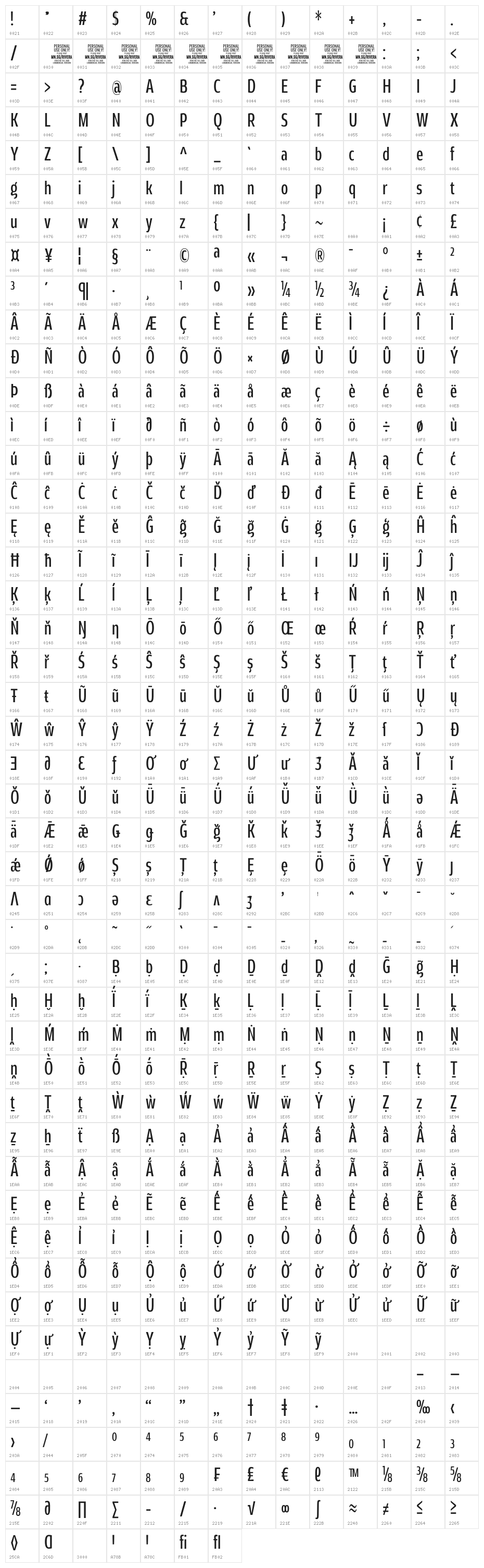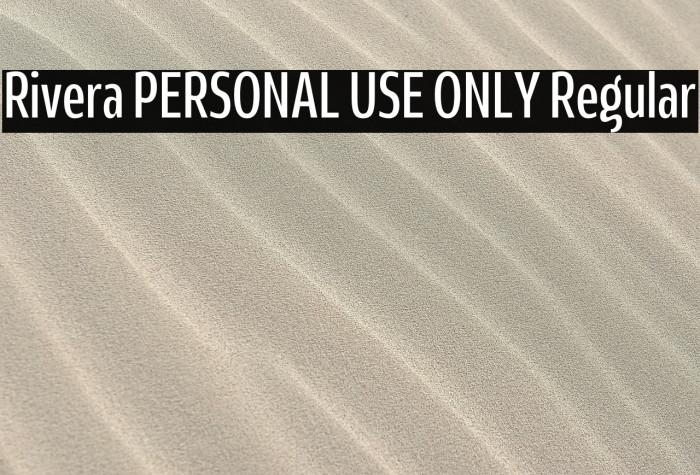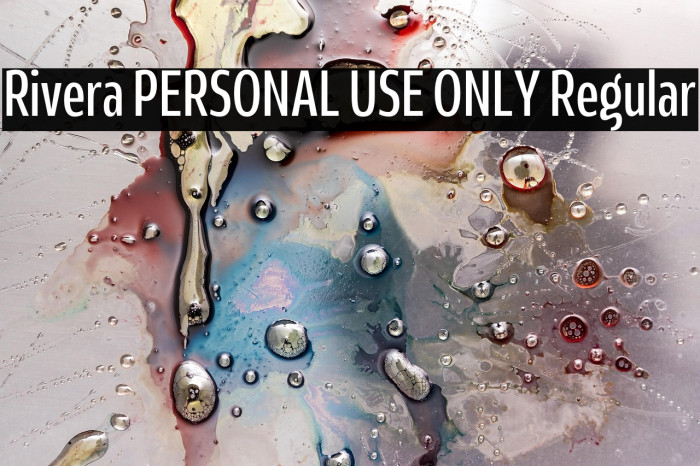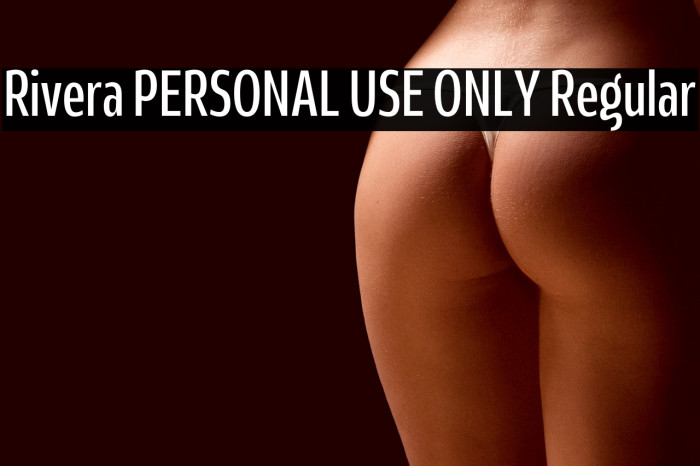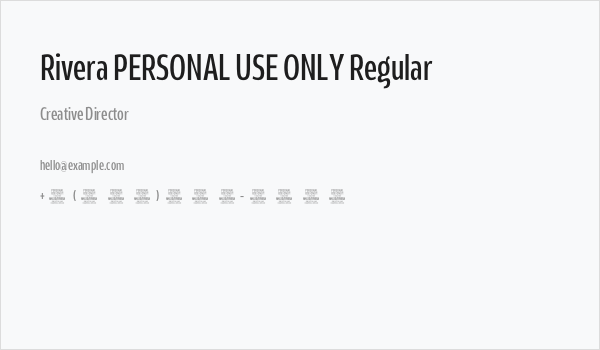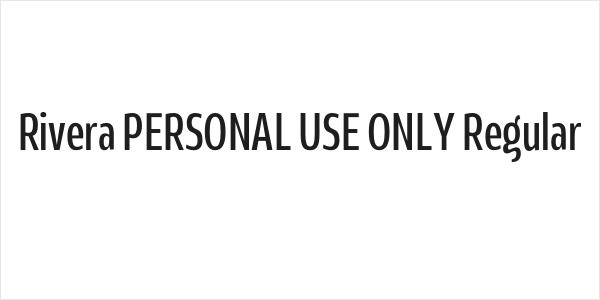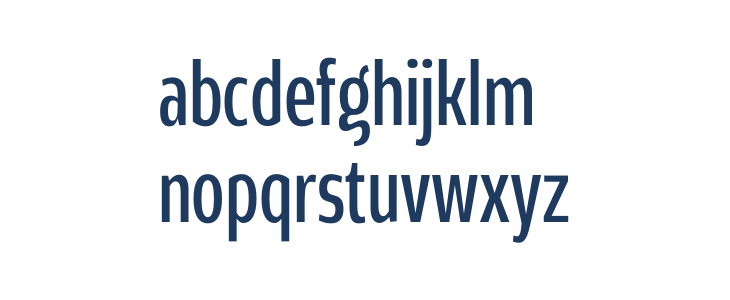
Rivera PERSONAL USE ONLY Regular Font
Rivera PERSONAL USE ONLY Regular Description
This font features a clean and modern sans-serif style with a strong emphasis on readability. The characters are tall and slightly condensed, providing a sleek and professional appearance. The uppercase letters are bold and commanding, while the lowercase letters maintain a consistent height, contributing to a harmonious look. The numerals are clear and straightforward, making them suitable for various applications. Special characters are well-defined, enhancing the font's versatility. Overall, this typeface is designed to convey clarity and professionalism, making it ideal for both digital and print media.